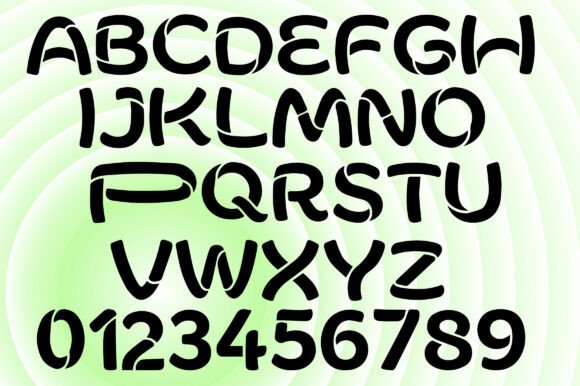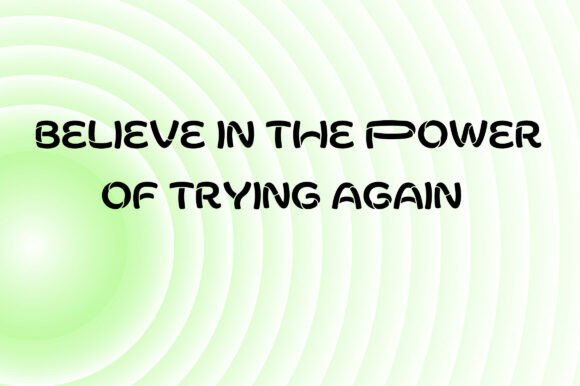
Beautiful Day | Futuristic Rounded Display Step into a bright tomorrow with Beautiful Day, a bold display font characterized by its innovative β€œstenciled” geometric forms and smooth, rounded edges.
The unique breaks within the letterforms create a high-tech, futuristic aesthetic while maintaining an approachable, friendly vibe Perfect for modern tech startups, gaming interfaces, futuristic apparel, and avant-garde posters.